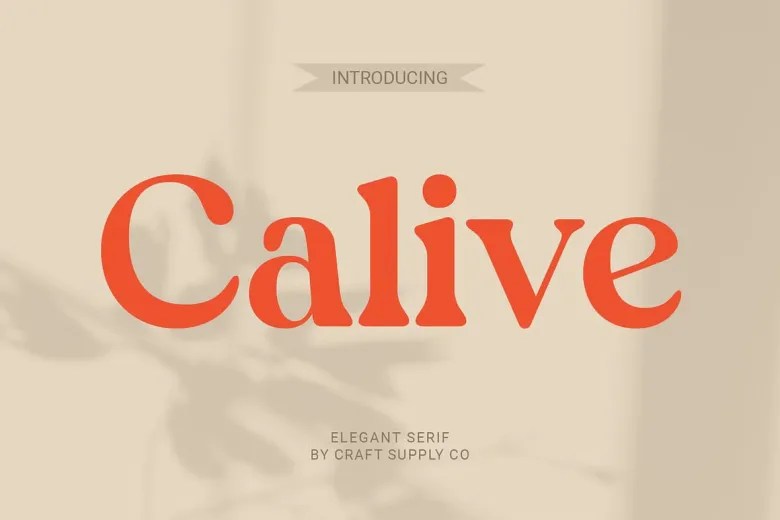
Calive Font
Calive Font is the epitome of nostalgic elegance with its rounded serifs and soft, sophisticated design. Inspired by fonts from the 1990s, Calive’s rounded serifs and gentle curves create a sense of relaxation and warmth that brings a touch of vintage charm to modern projects. Each letter embodies a refined simplicity, evoking a sense of nostalgia that resonates with the serene aesthetic of past decades.
Rounded Serif Design
Calive’s rounded serifs and smooth lines exude an inviting softness, reminiscent of classic typefaces from the 1990s. This distinctive design not only adds a nostalgic touch but also infuses your project with a subtle sophistication. Whether used for branding, packaging, or editorial design, Calive’s rounded edges provide a comforting and familiar feel that engages viewers and enhances visual appeal.
Flexible Usage
Designed with versatility in mind, Calive is perfect for a wide range of applications. Its nostalgic charm and elegant simplicity make it a great choice for packaging, branding, and editorial design. The font’s warm style adds personality and character to various projects, making it a valuable asset for designers looking to create memorable and engaging designs.
Timeless Attractiveness
Despite its vintage influences, Calive maintains a timeless quality that ensures its relevance across different media. Its rounded serifs and relaxed vibe make it suitable for both print and digital uses, adding warmth and a touch of elegance to any design. Whether you’re working on a retro-themed project or simply seeking a font with a unique personality, Calive delivers timeless attractiveness and visual comfort.